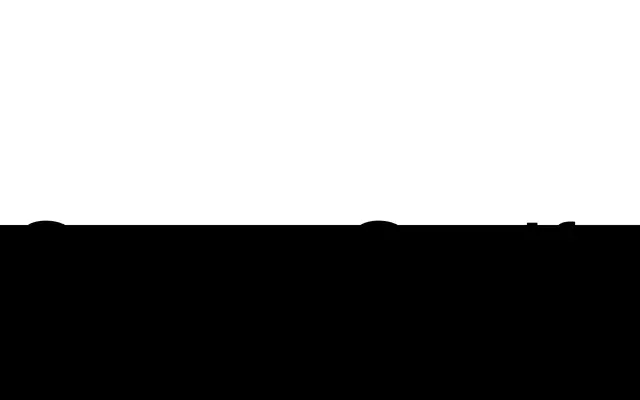
Setup Serif
A text-focused humanist serif by Ondrej Jób, offered in 14 styles from Thin to Black with matching italics and comprehensive figure sets.
Designed by Ondrej Jób, this humanist serif is built for continuous text with medium contrast, natural width and a medium x-height. Fourteen styles cover seven weights from Thin to Black, each with a corresponding italic, and the glyph set of 550 characters includes proportional oldstyle figures by default alongside lining, tabular, superscript, subscript and fraction variants. Latin Extended coverage reaches over 100 languages, with additional OpenType features including two stylistic sets, standard ligatures and case-sensitive forms.
The foundry explicitly describes it as a humanist serif with medium contrast, natural width, and medium x-height, intended primarily for text use.